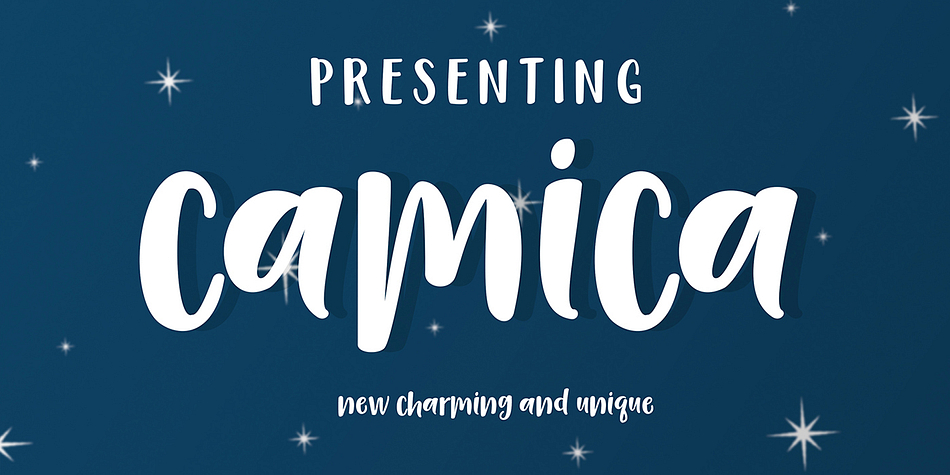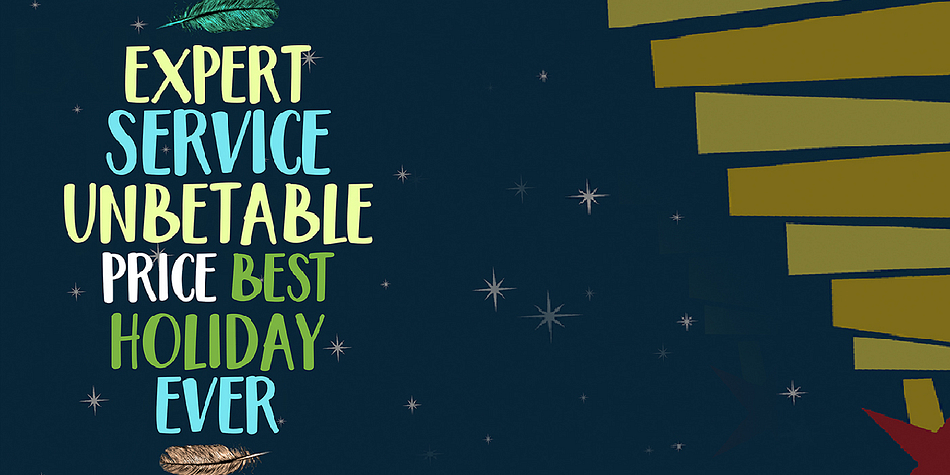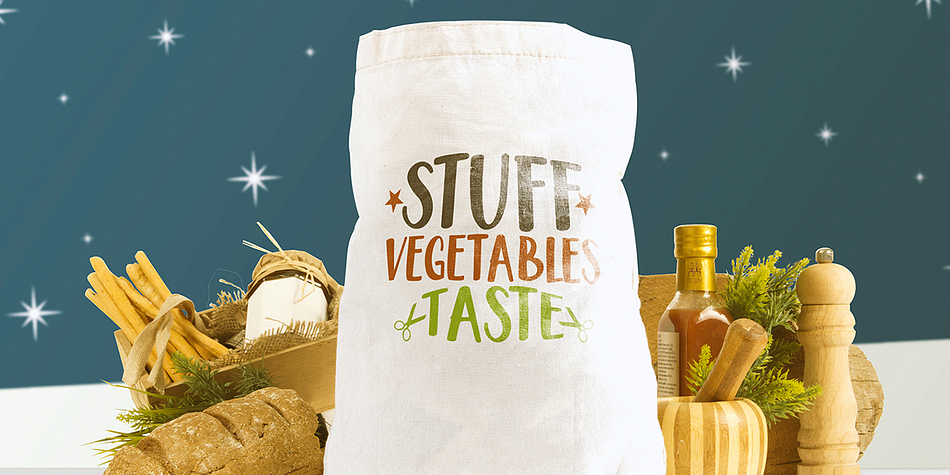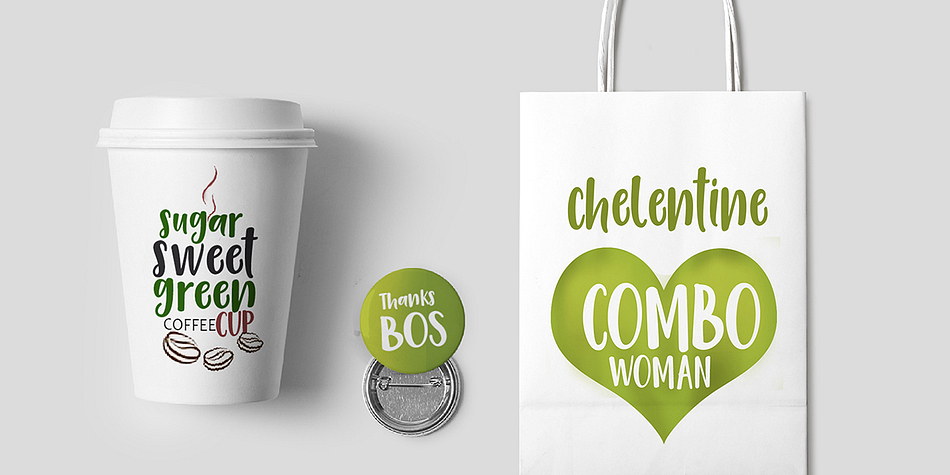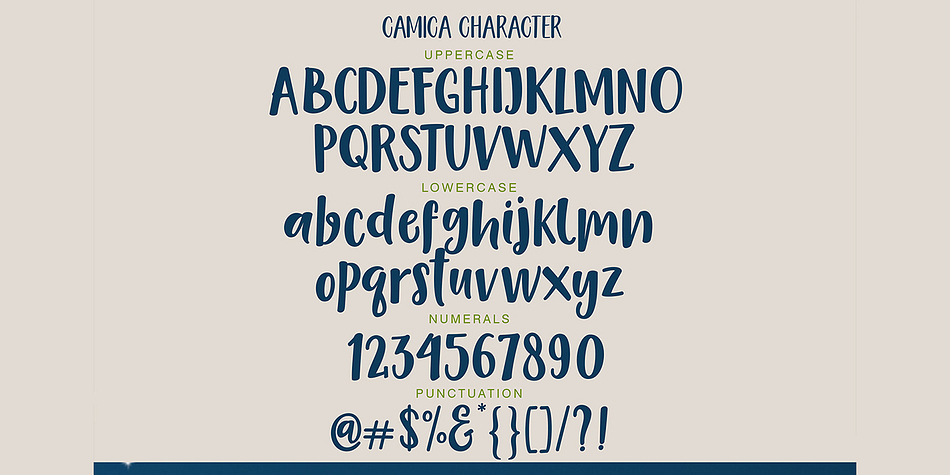
Camica is a brush script font published by Genesislab.
Camica is a font with influences from natural handwriting and comic. With this font, you can highlight celebrations, because this fonts will be a driving force for purposes such as cover design, wedding invitations, party , graduation, birthday, gathering, etc.
Camica can be easily and simply used because it contains a lot of features: a complete set of letters lower and uppercase letters, assorted punctuation, numbers, and multilingual support.